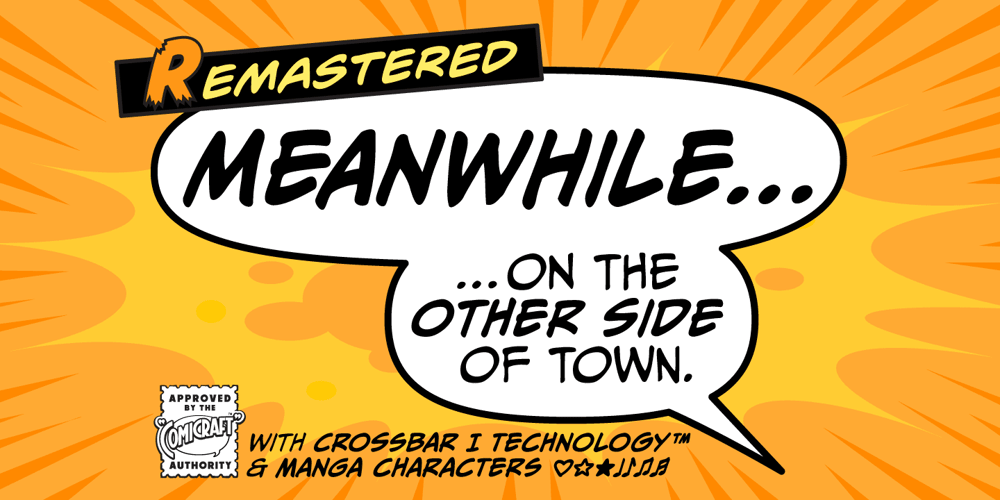
Meanwhile Font Family was designed by John Roshell and published by Comicraft. Meanwhile contains 5 styles and family package options. ‘Suddenly –‘ just isn’t ‘Soon…’ enough for some people, and ‘Later…’ isn’t quite ‘The Next Day…’ ‘Meanwhile…’ lies inbetween ‘Seconds pass…’ and ‘That Night…’ and was designed by Comicraft’s John ‘With Just a few minutes to Go…’ Roshell in order to tell the tales of Marvel’s AVENGERS and FANTASTIC FOUR. ‘And now, back to the action…’